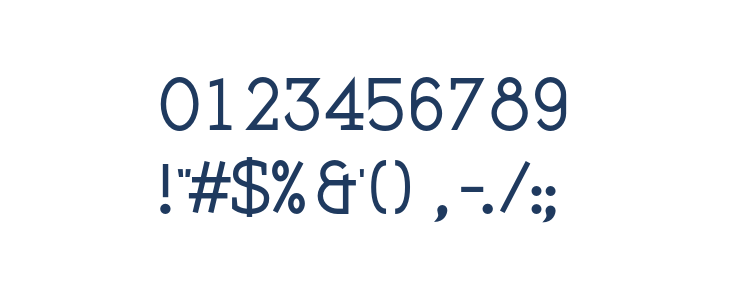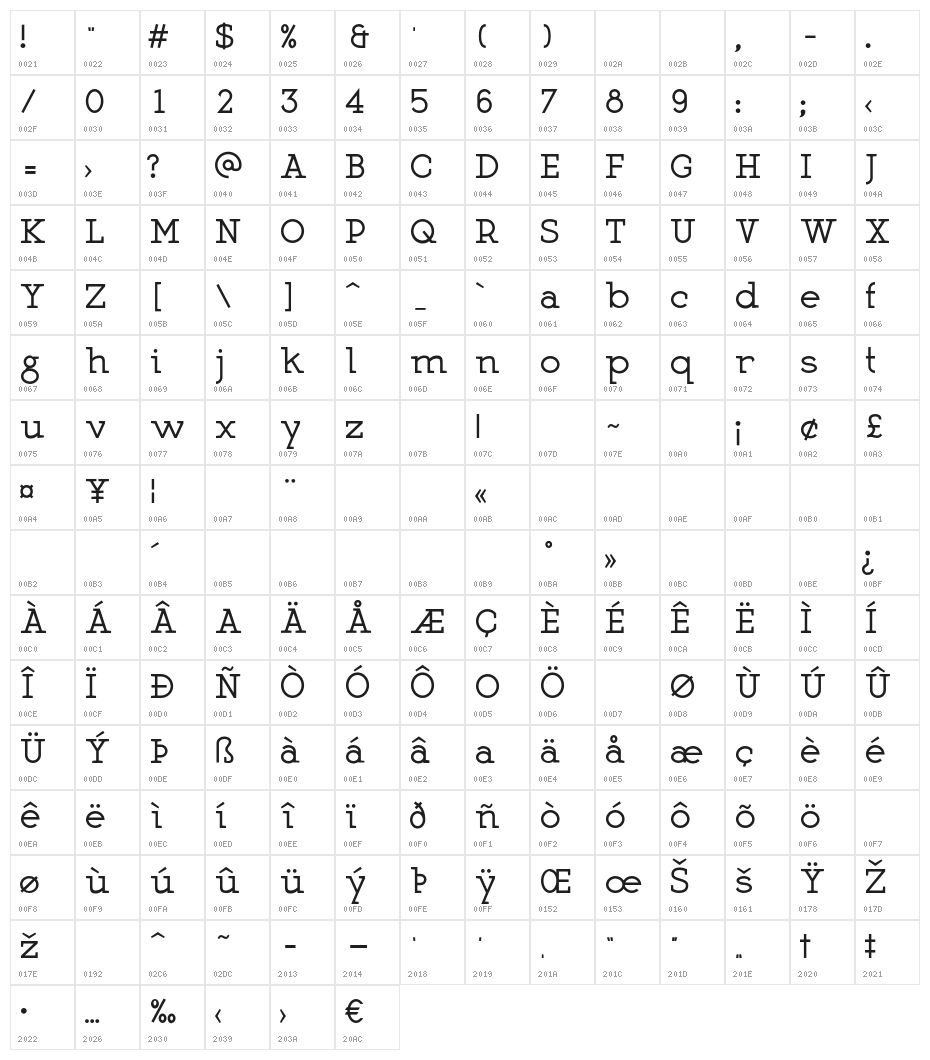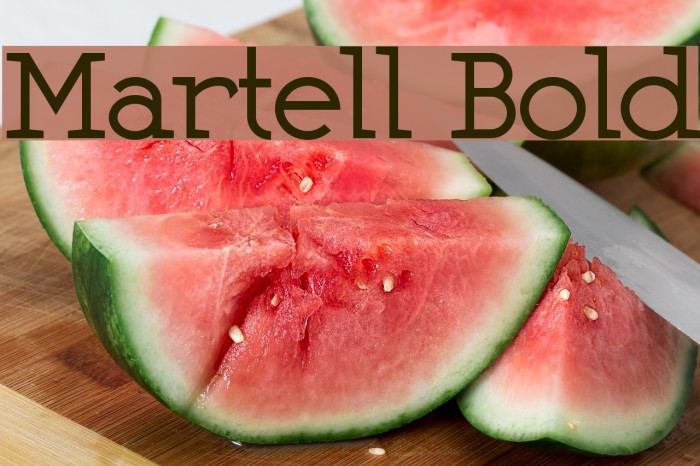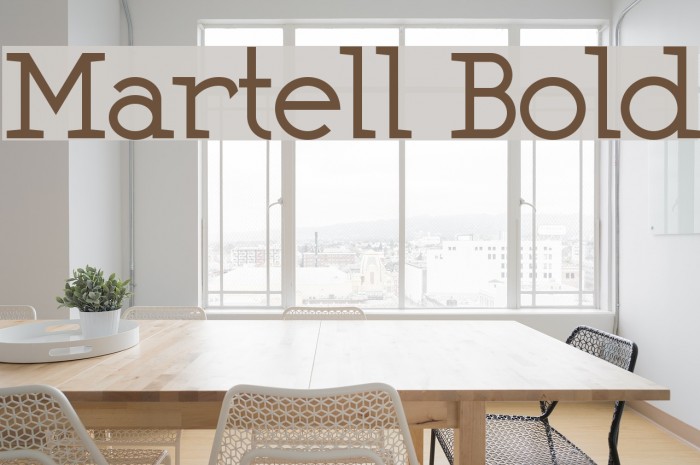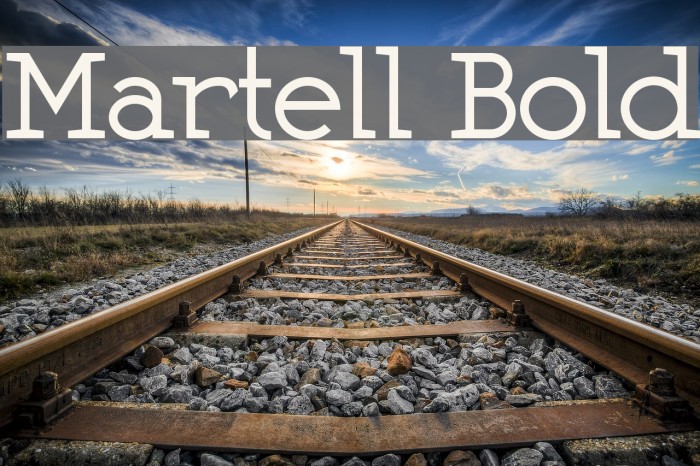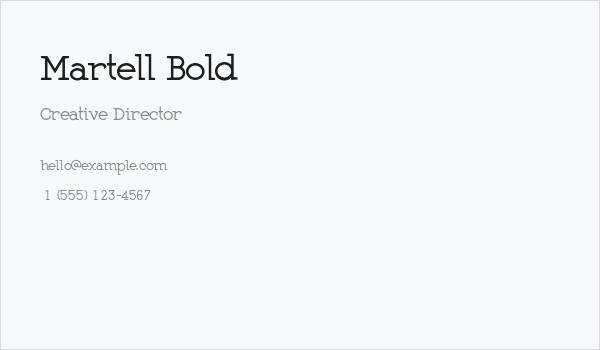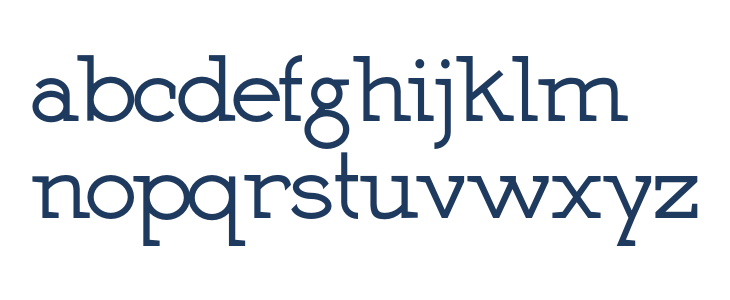
Martell Bold Font
Martell Bold Description
This font features a bold and confident serif style, characterized by its strong vertical strokes and subtle curves. The uppercase letters exhibit a classic and authoritative presence, while the lowercase letters maintain a harmonious balance with their rounded forms. The numerals are clear and legible, making them suitable for various applications. Special characters are well-integrated, ensuring consistency across all glyphs. The overall design exudes a timeless elegance, making it versatile for both modern and traditional projects.
| Use Case | Headlines, Logos, Editorial design |
| Proposed Projects | Ideal for book covers, editorial design, branding, and formal invitations. |